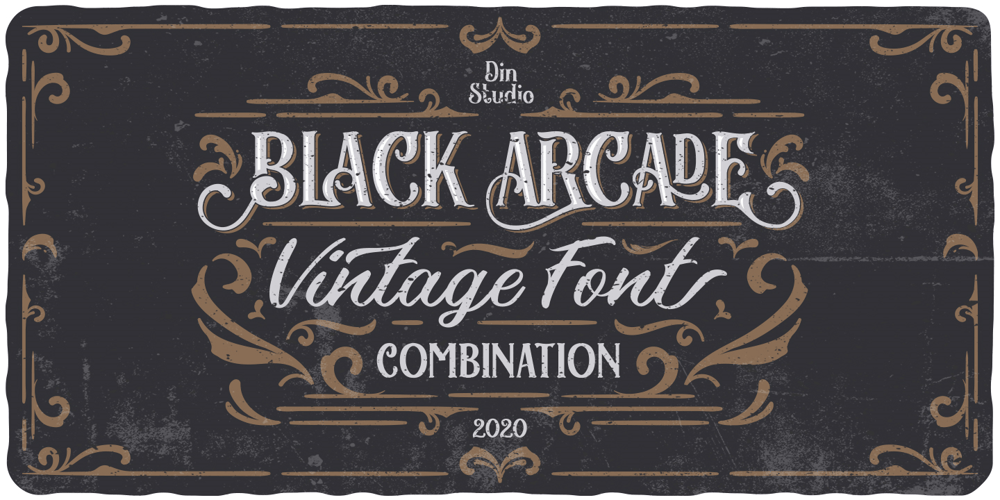
Black Arcade Font Family was designed by Donis Miftahudin and published by Din Studio. Black Arcade contains 5 styles and family package options. Black Arcade Font Pack. The Amazing Font Pack for your design projectThe pack containing : Accents (Multilingual characters) 10 Ligatures PUA encoded Numerals and Punctuation (OpenType Standard) Display Font Script Font Ornament (EPS 10) The font is suitable for any design project.